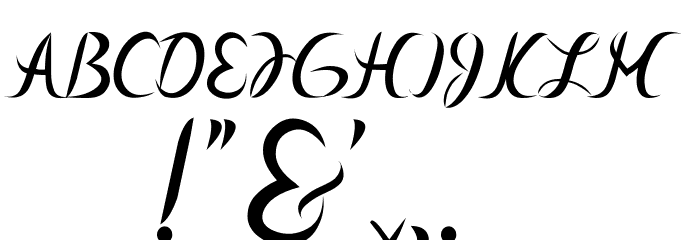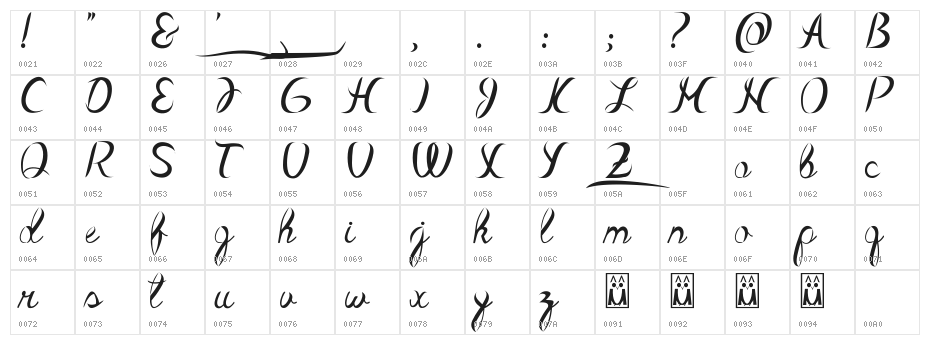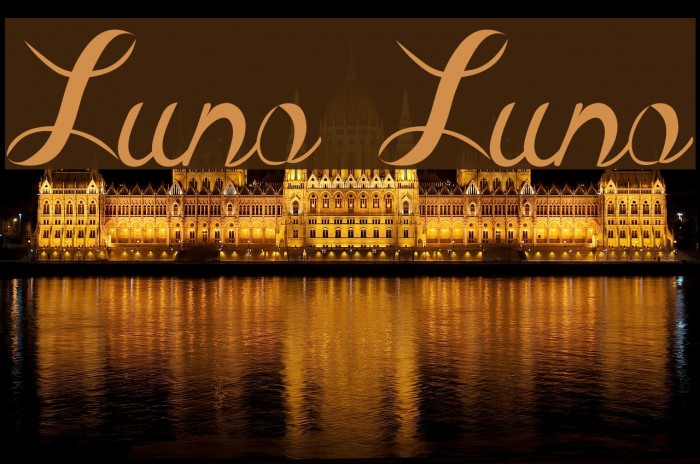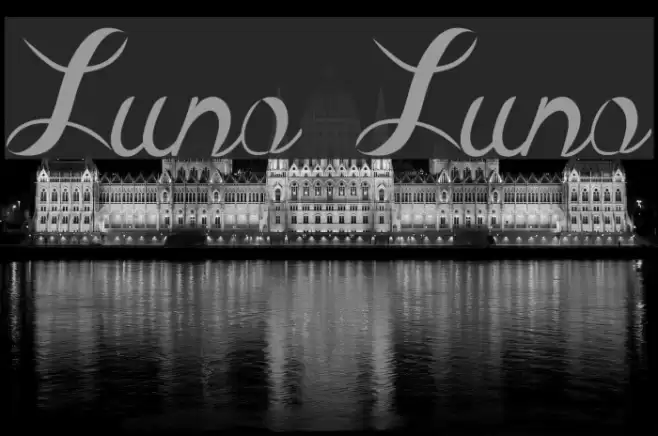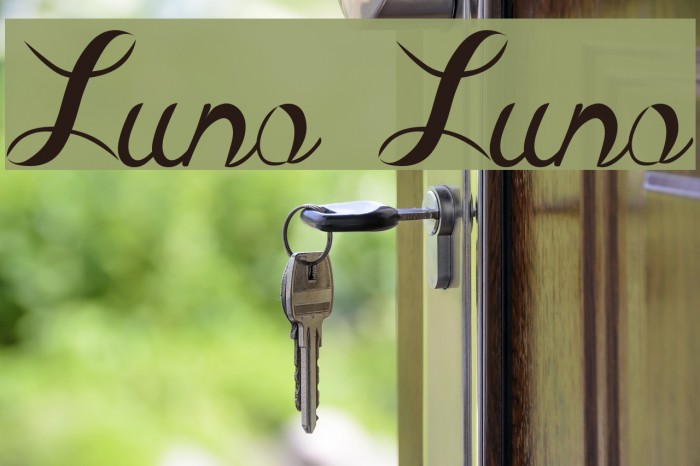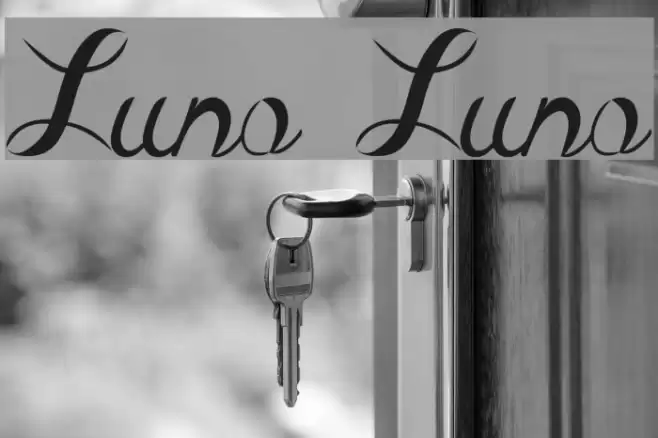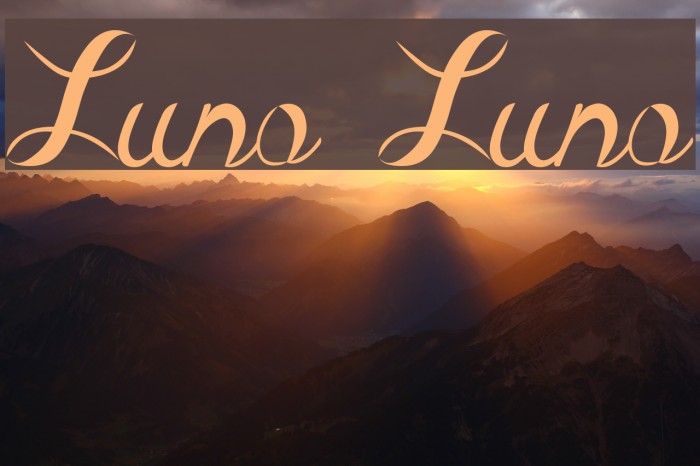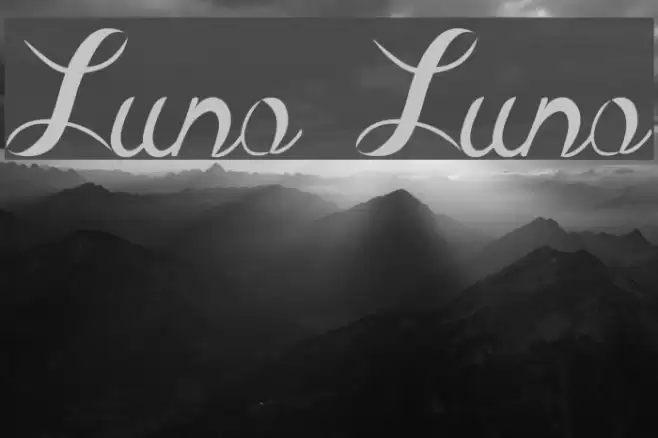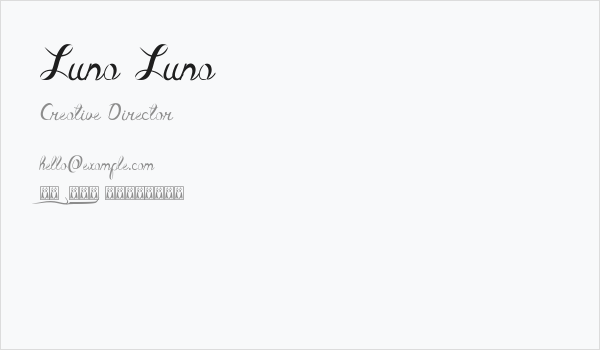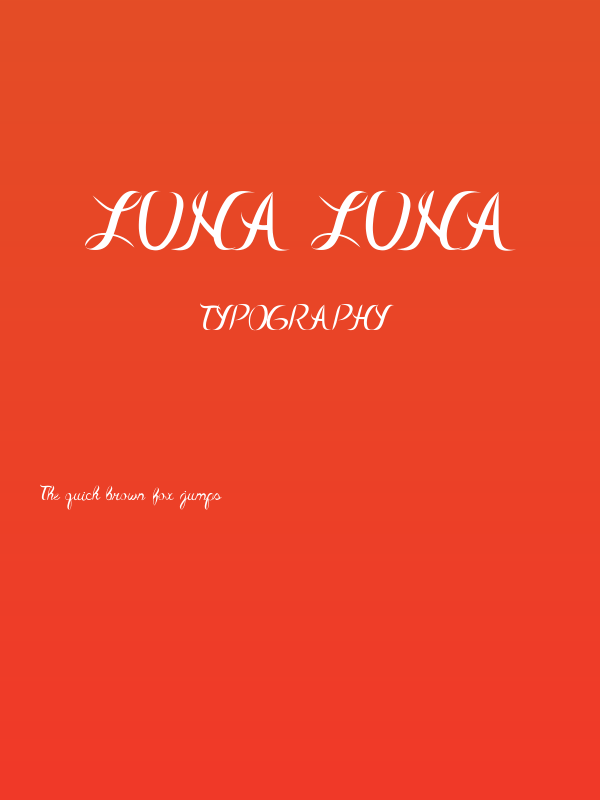
Luna Luna Font
Luna Luna Description
This font features an elegant and flowing script style, characterized by its smooth, connected strokes and graceful curves. The uppercase letters exhibit a sense of grandeur with their sweeping lines and intricate loops, while the lowercase letters maintain a consistent fluidity, enhancing readability. The numerals and special characters are designed with the same attention to detail, ensuring a cohesive appearance across all elements. The overall aesthetic is both sophisticated and artistic, making it suitable for a variety of creative applications.
| Proposed Projects | Ideal for wedding invitations, greeting cards, branding projects, and elegant packaging designs. |